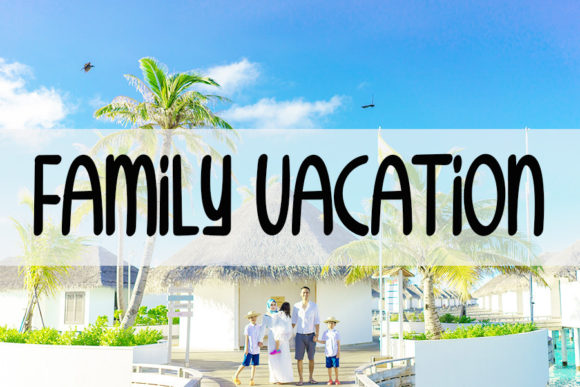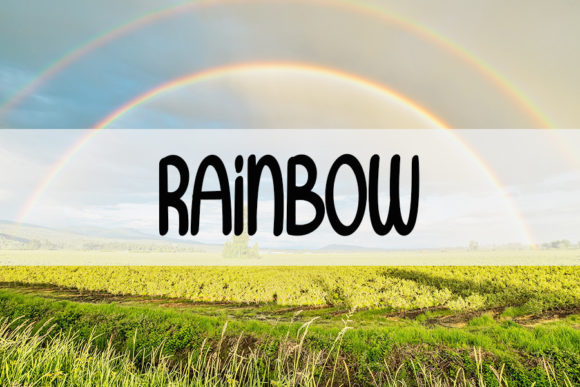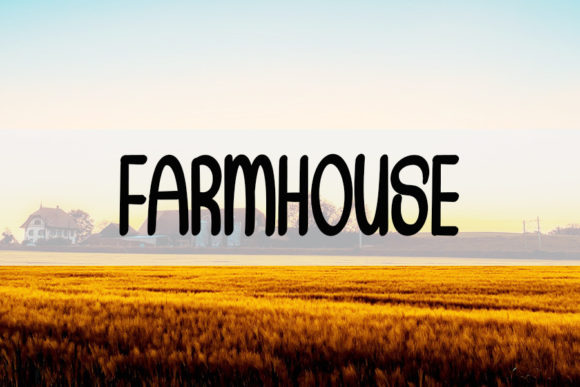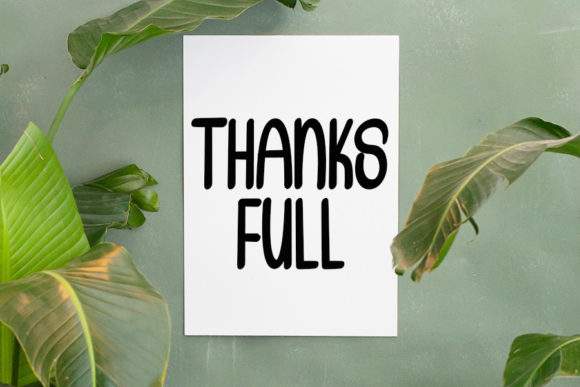
One Heart Font
One Heart is a casual handwritten font, carefully designed to become a true favorite. It maintains its classy calligraphic influences while feeling contemporary and fresh.